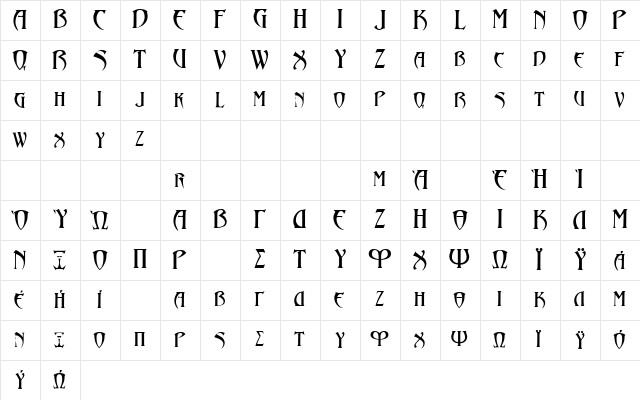
MSAladdin Normal
Design Context for MSAladdin Typeface
MSAladdin is a composed and adaptable typeface that performs quietly and consistently across a wide range of design contexts.